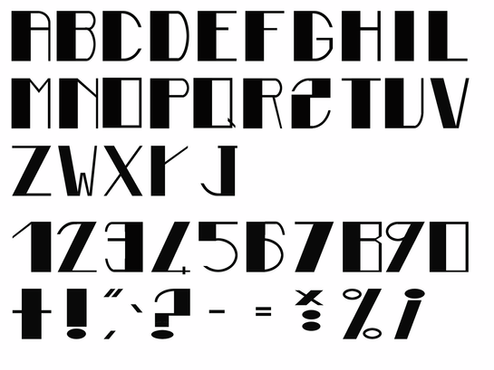
The theme for this was 'future facing'. Designed to allow different shapes to interact & lock together when different letters are put beside each other (if that makes sense). Lots of room for improvement but for a first it's not too bad, what you think?Related content
Very interesting font. Can be downloaded from somewhere?
i never really thought about making it into an actual typeface, i've never done it before. might give it a go one day